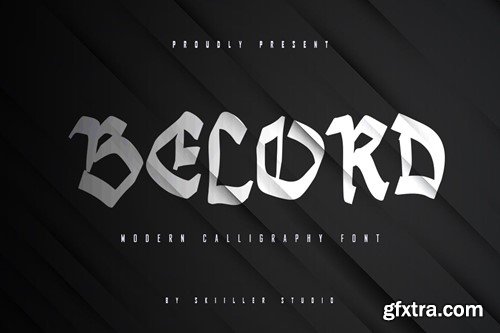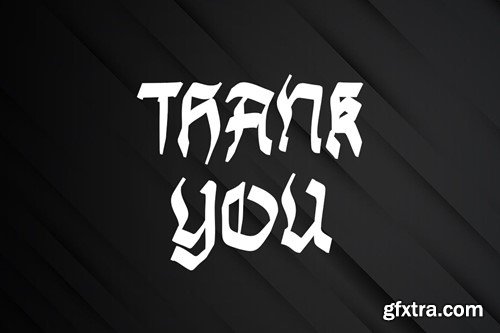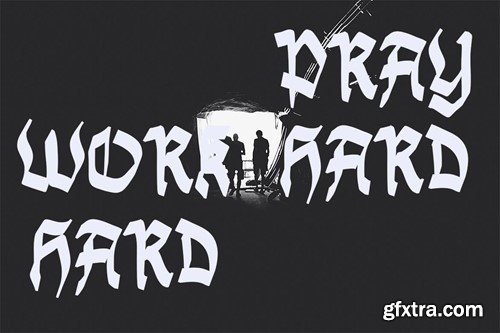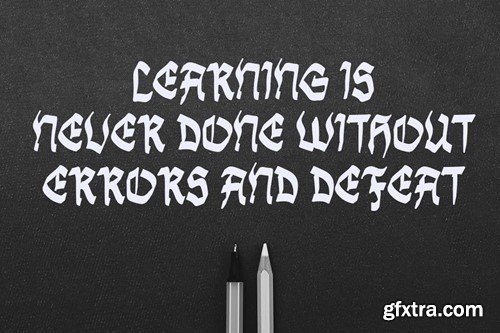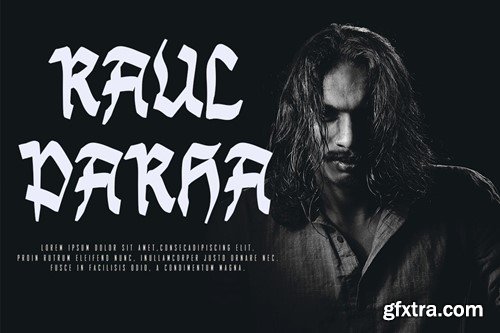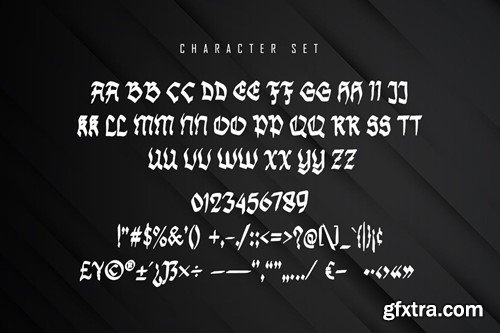
贝尔德 - 现代书法字体 LDUUA7J
Belord - Modern Calligraph Font
Belord - Modern Calligraph Font type with a rapi so it looks elegant, suitable to support a variety of designs and your business What's include: